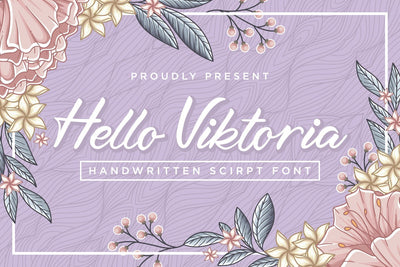
Hello Viktoria - Handwritten Script Font
Hello Viktoria is a stunning Handwritten style script font with authentic and casual feels. It will be perfectly used for Branding, Logo Design, Lettering, Logotype, Clothing, Poster, magazine, packaging, posters, shopping bags, t-shirts, book covers, photography, special events and other design project.